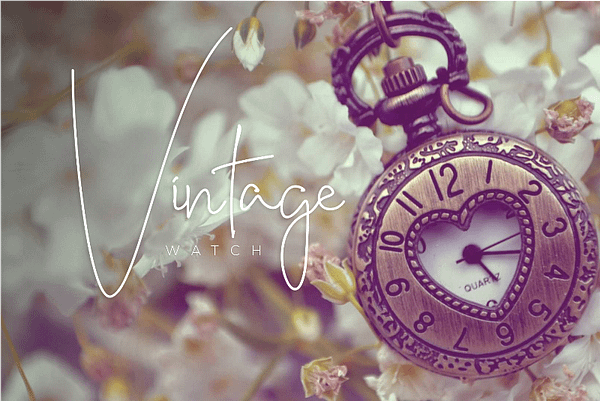
Introducing the Bente font – an exceptionally unique and bold script font that exudes modern elegance. Bente is your go-to choice for enhancing a wide range of creative projects. Whether it’s photography, watermarking, social media posts, advertising, logo and branding, invitations, product design, labels, stationery, wedding designs, product packaging, special events, or anything in need of a touch of distinctive handwriting, Bente delivers.
With its bold monoline script style, Bente font is an instant source of inspiration that adds a contemporary flair to your designs. Whether you’re looking to make your social media posts stand out or create memorable wedding invitations, this font is designed to bring a unique and daring touch to your projects.
Elevate your creative endeavors with the distinct charm of Bente font. This monoline script font is your key to adding a bold and elegant edge to your visual storytelling. Explore the endless possibilities and let your projects shine with the extraordinary Bente font.
Bente is a distinctive display font that brings a unique personality and “catchy” vibe to your creative projects. With its irregular yet balanced shapes, Bente is designed for creators who want to break away from standard fonts and add a touch of artistic flair.
Perfectly suited for:
- Unique Branding: Logo designs for creative agencies, boutiques, or artisan brands.
- Social Media: Eye-catching Instagram quotes and aesthetic layouts.
- Stationery: Creative invitations, business cards, and greeting cards.
- Packaging: Modern labels for skincare, lifestyle products, or coffee.